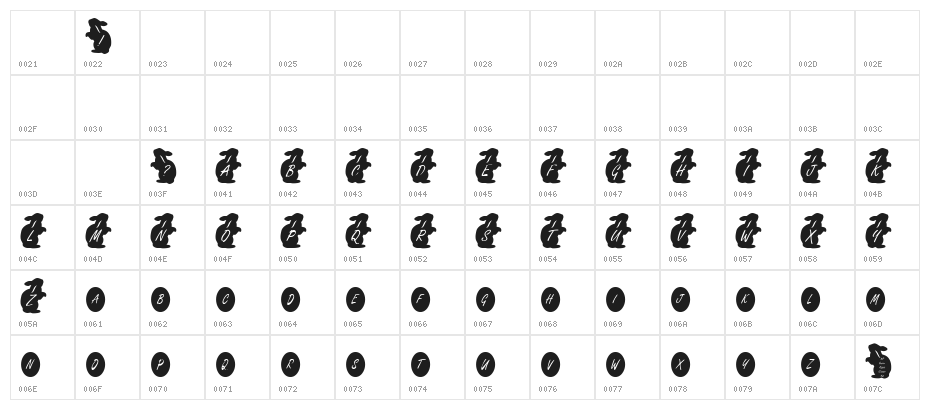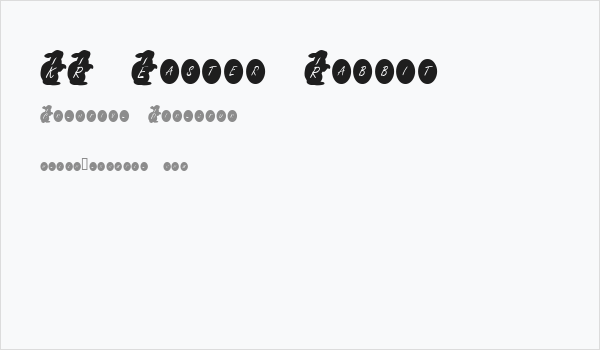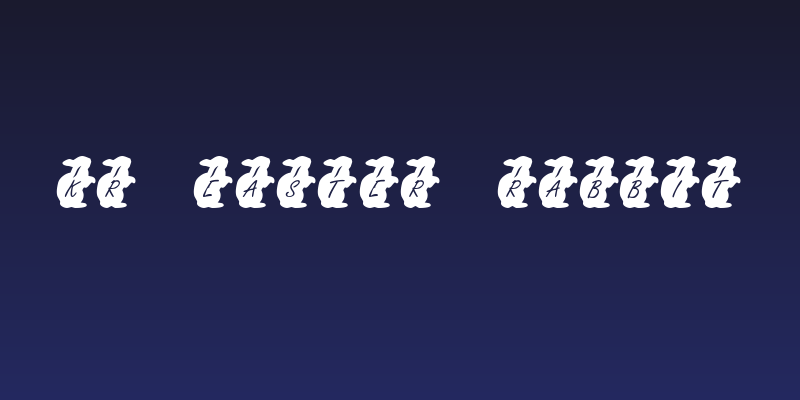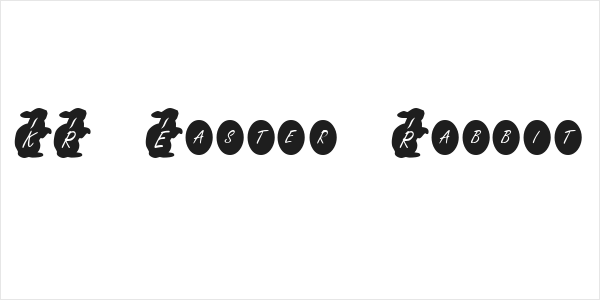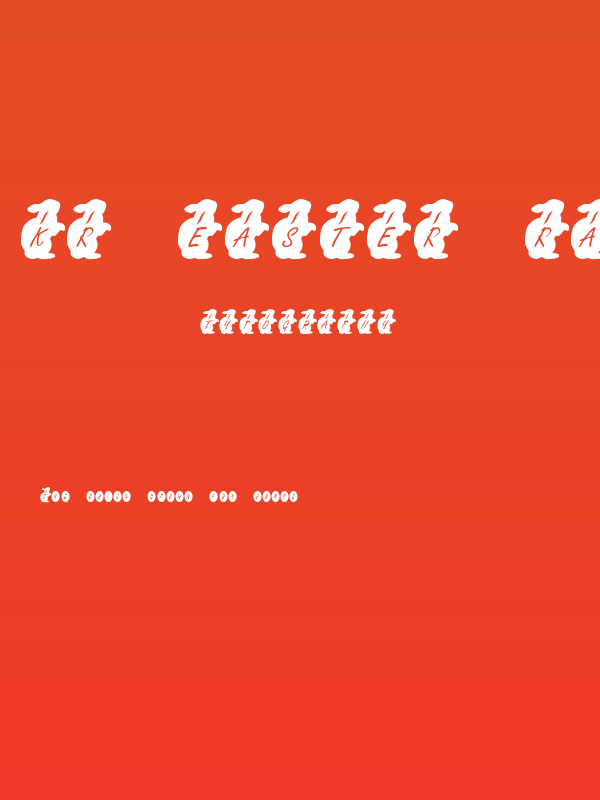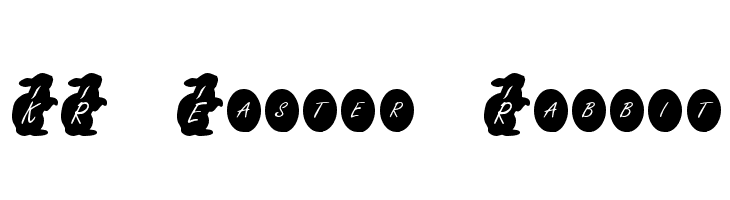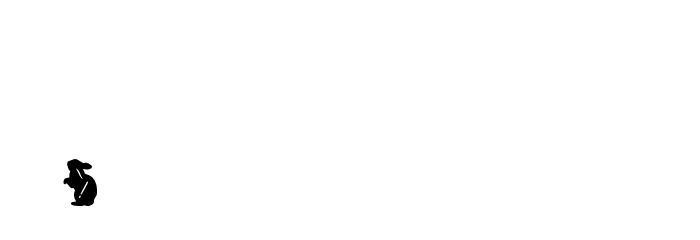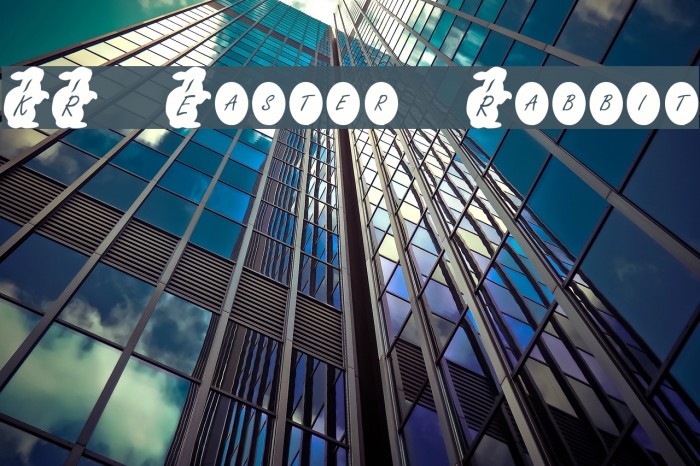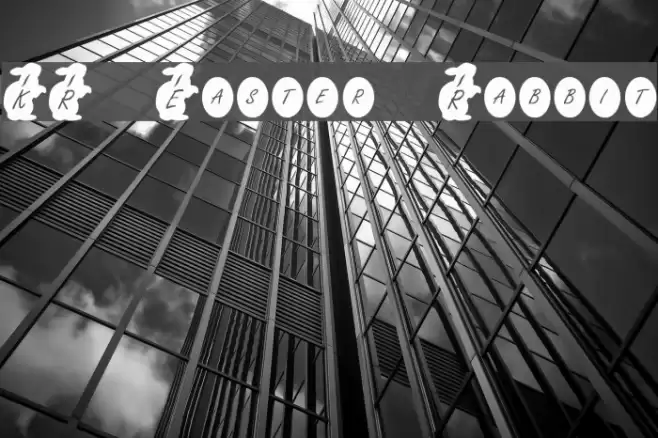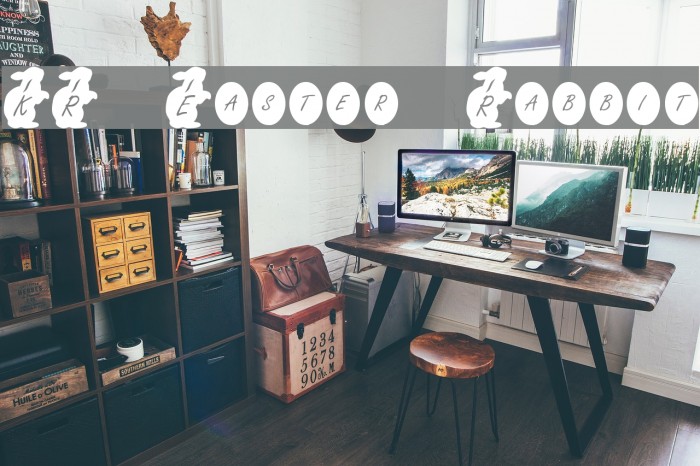
KR Easter Rabbit Font
| Anwendungsfall | Headlines, Logos, Themed graphics |
| Vorgeschlagene Projekte | Ideal for Easter cards, festive invitations, themed posters, and playful graphic designs. |